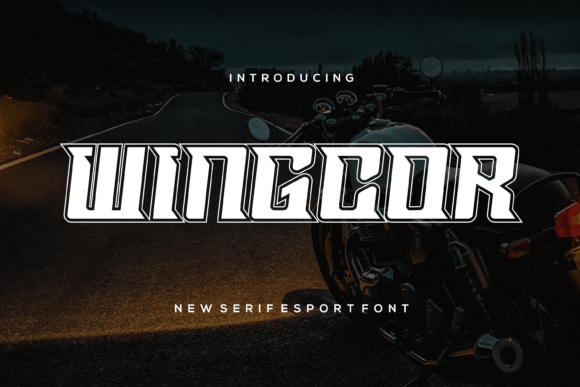
Introducing Wingcor, the bold and striking slab serif font that will add a touch of elegance and strength to your creative projects. With its sharp edges and dynamic curves, Wingcor is perfect for captivating magazine covers, eye-catching posters, unforgettable logos, and more.
Immerse yourself in the world of Wingcor, where classic meets contemporary, and imagination knows no bounds. Its versatile appeal allows you to effortlessly transition from formal settings to playful designs, leaving an unforgettable impact on your audience.
Whether you're a seasoned designer or just starting out, Wingcor is the perfect font to add to your creative arsenal. Its intuitive design and user-friendly nature make it easy to integrate into your existing projects or become the cornerstone of your new ones.
Unlock the power of Wingcor and elevate your creative vision to new heights. Its distinct character and undeniable charm will transform your ideas into captivating realities, leaving a lasting impression on all who encounter them.